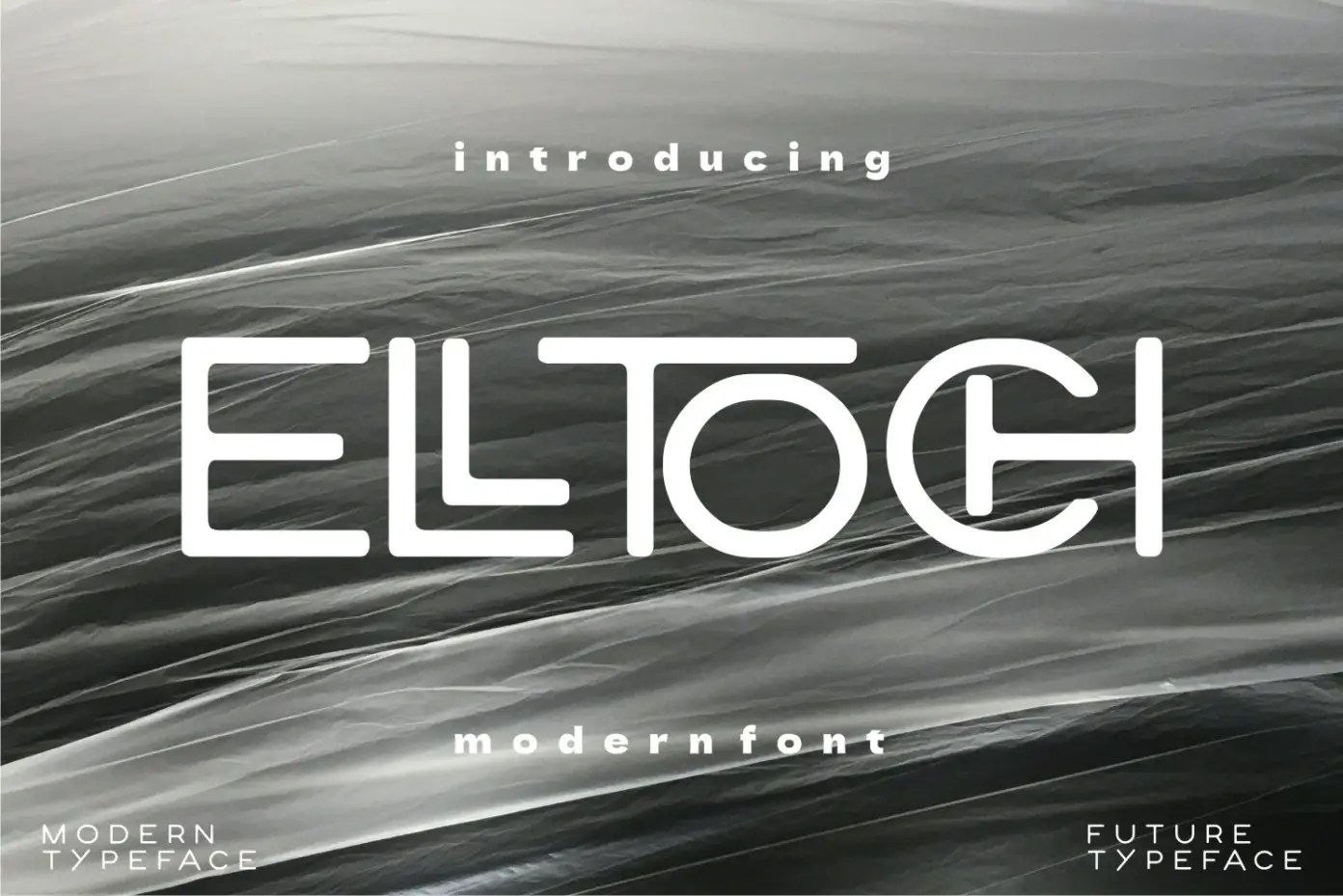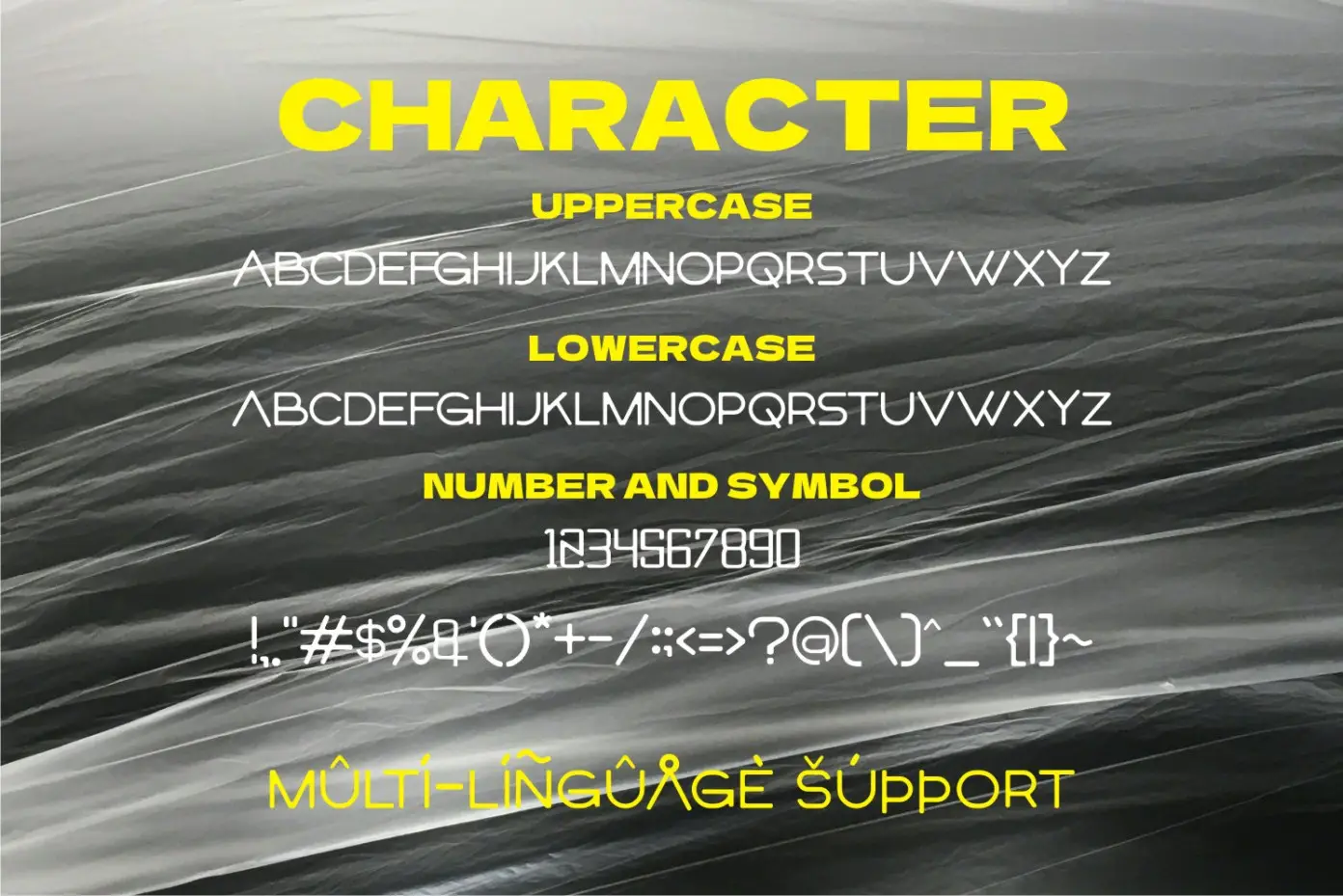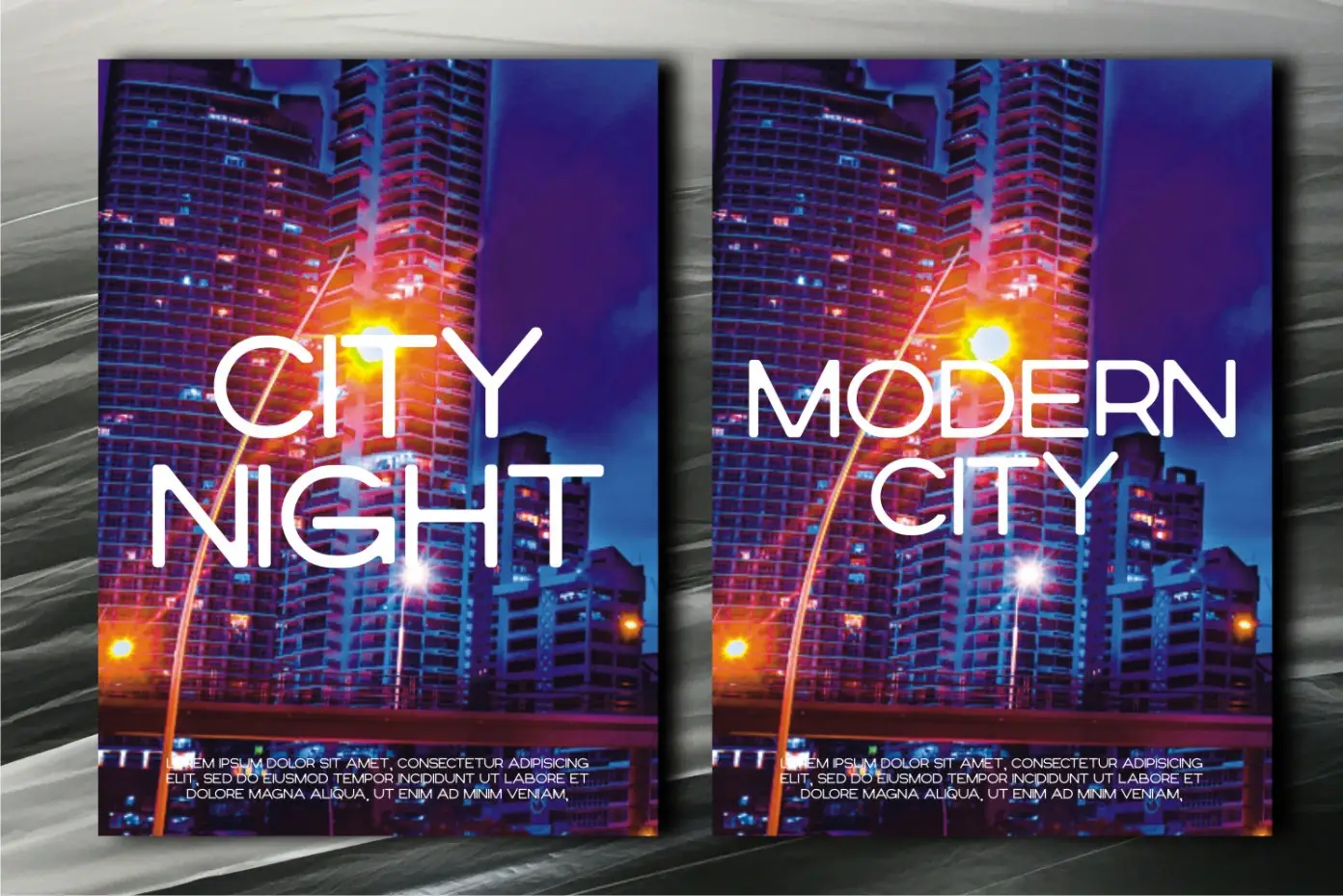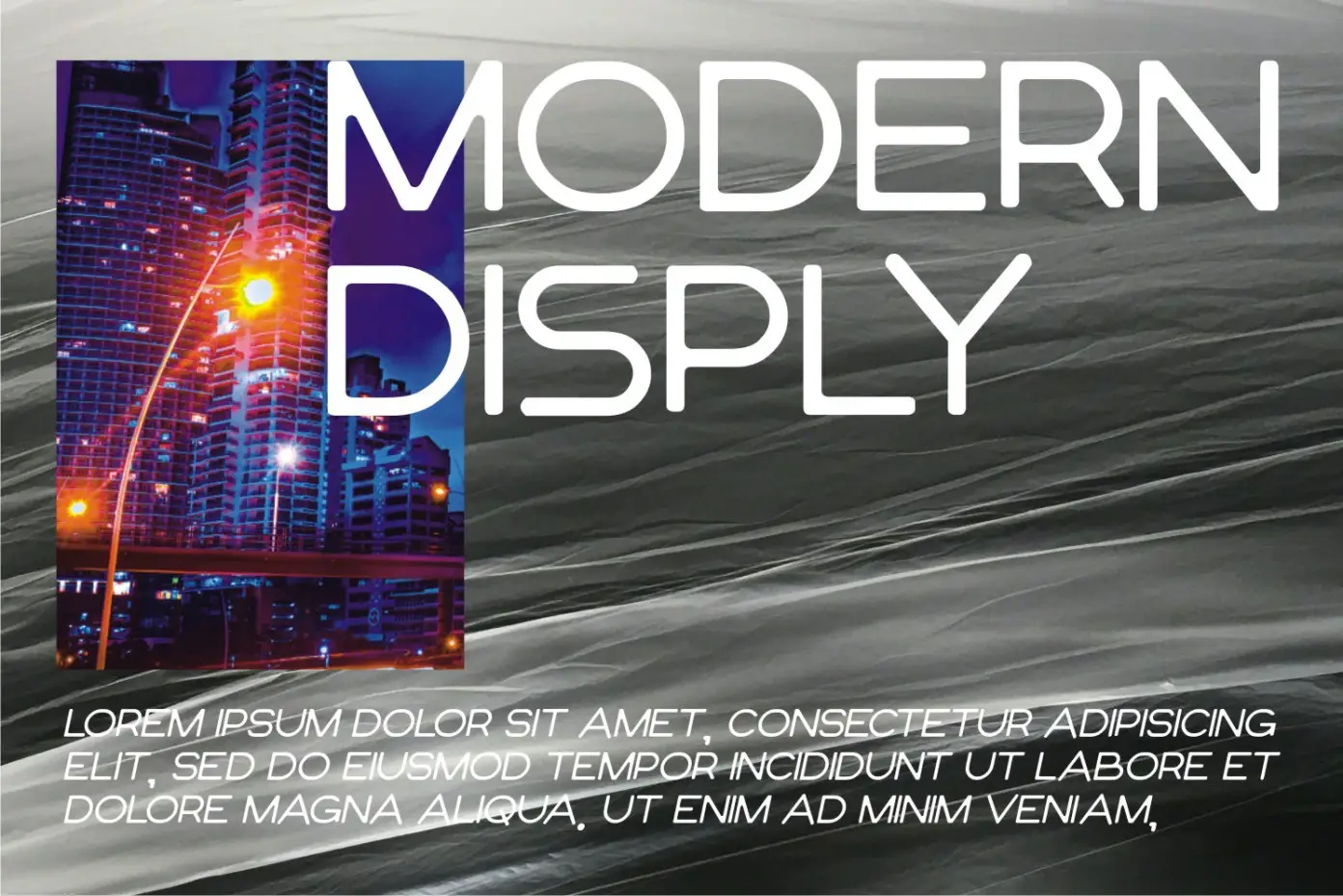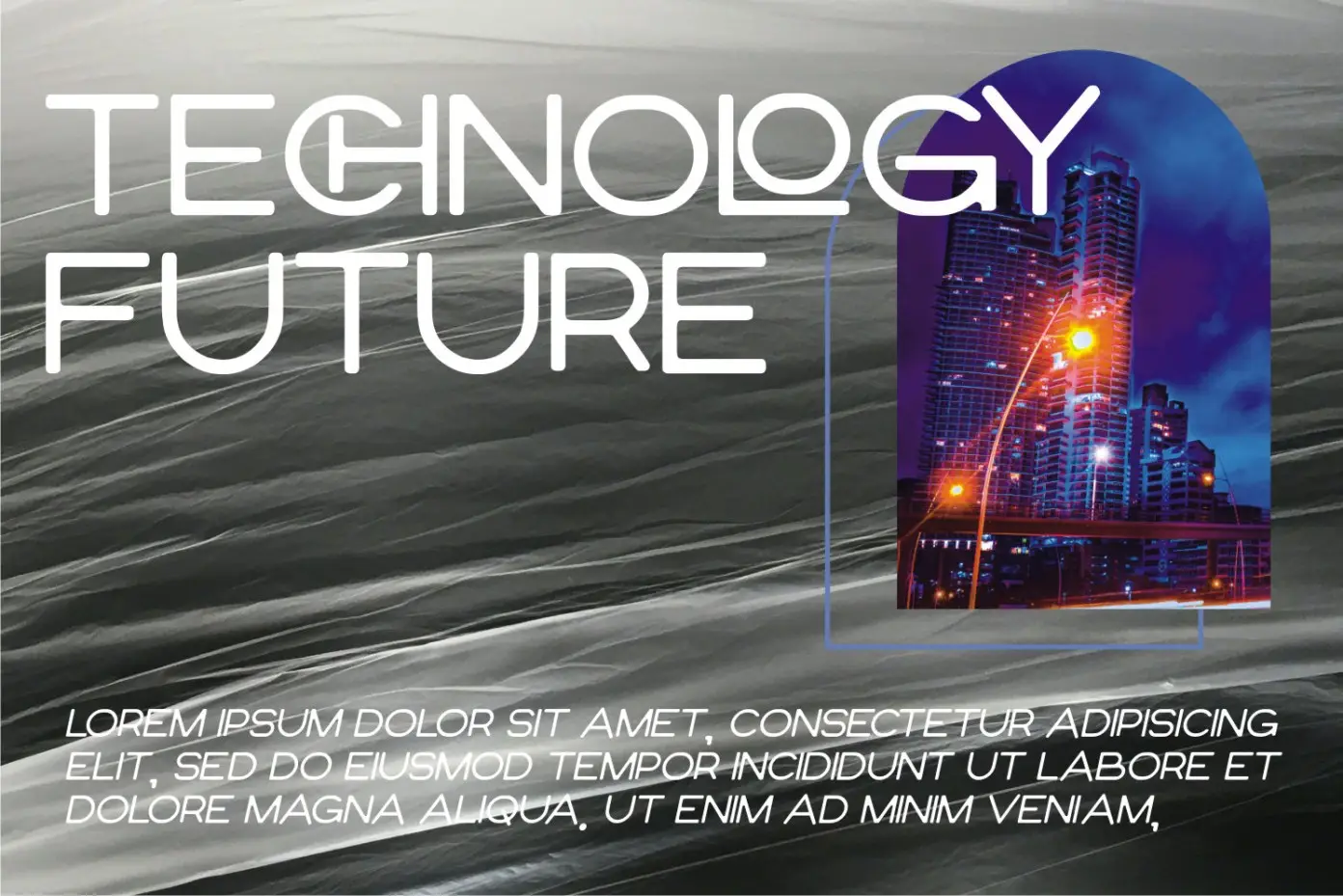
Elltoch Display Font
Introducing the Elltoch Display Font, a unique typeface designed to make a bold statement in your projects. With its distinctive character and stylish design, this font is perfect for branding, logos, and eye-catching headings.
• Stylish display font
• Multiple weights available
• Special characters and symbols included
• Style: Display
• Weight: Regular, Bold
• Ideal for branding and logo design
• Great for web and print applications
• Use in UI designs for a modern touch